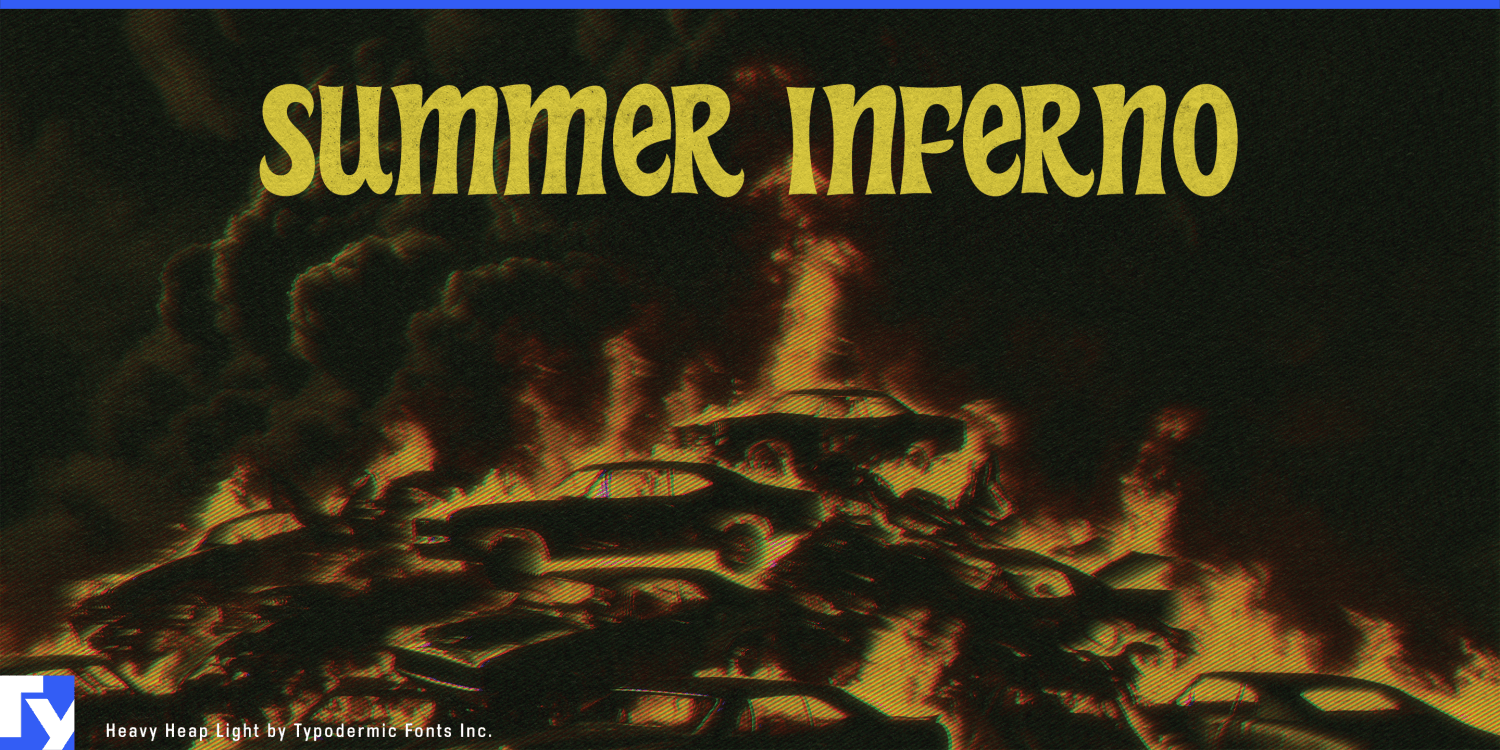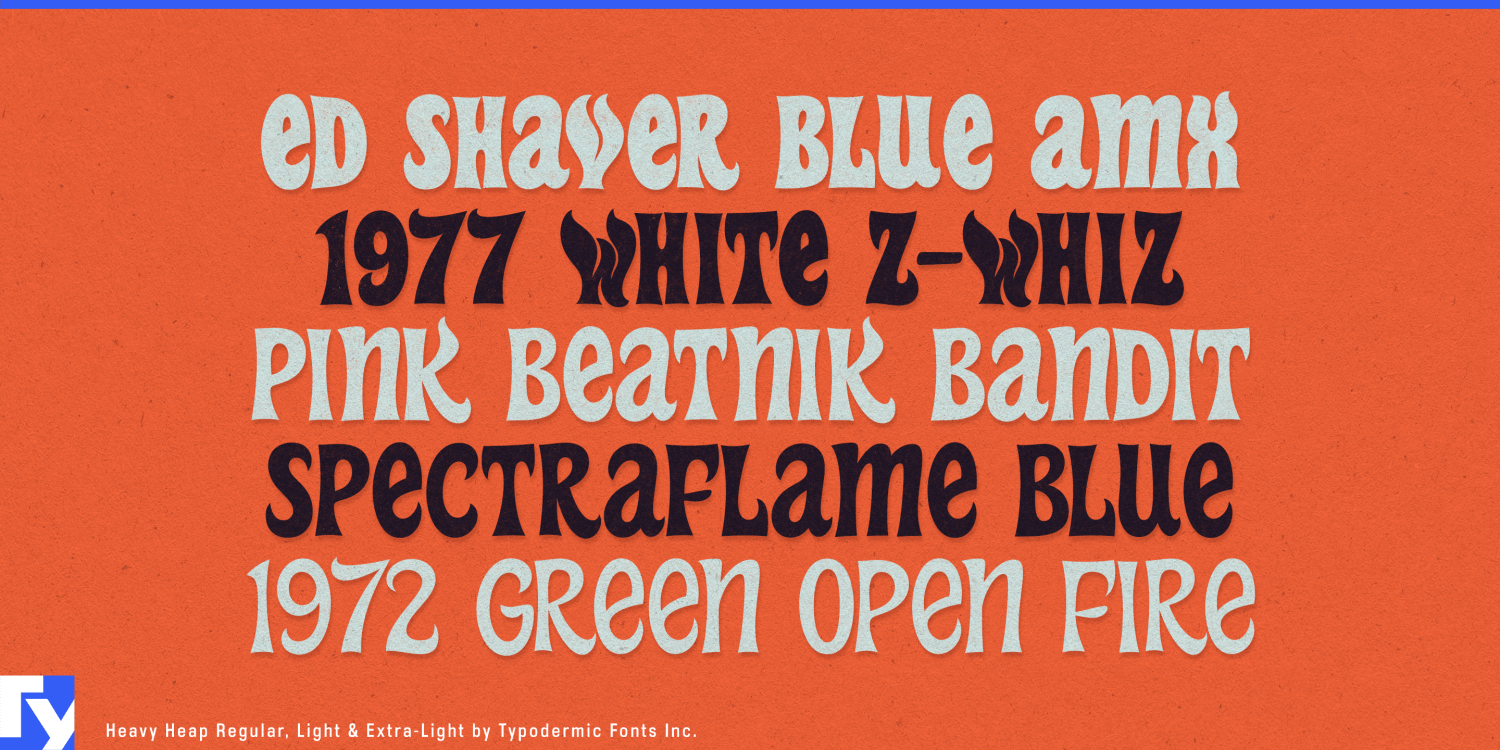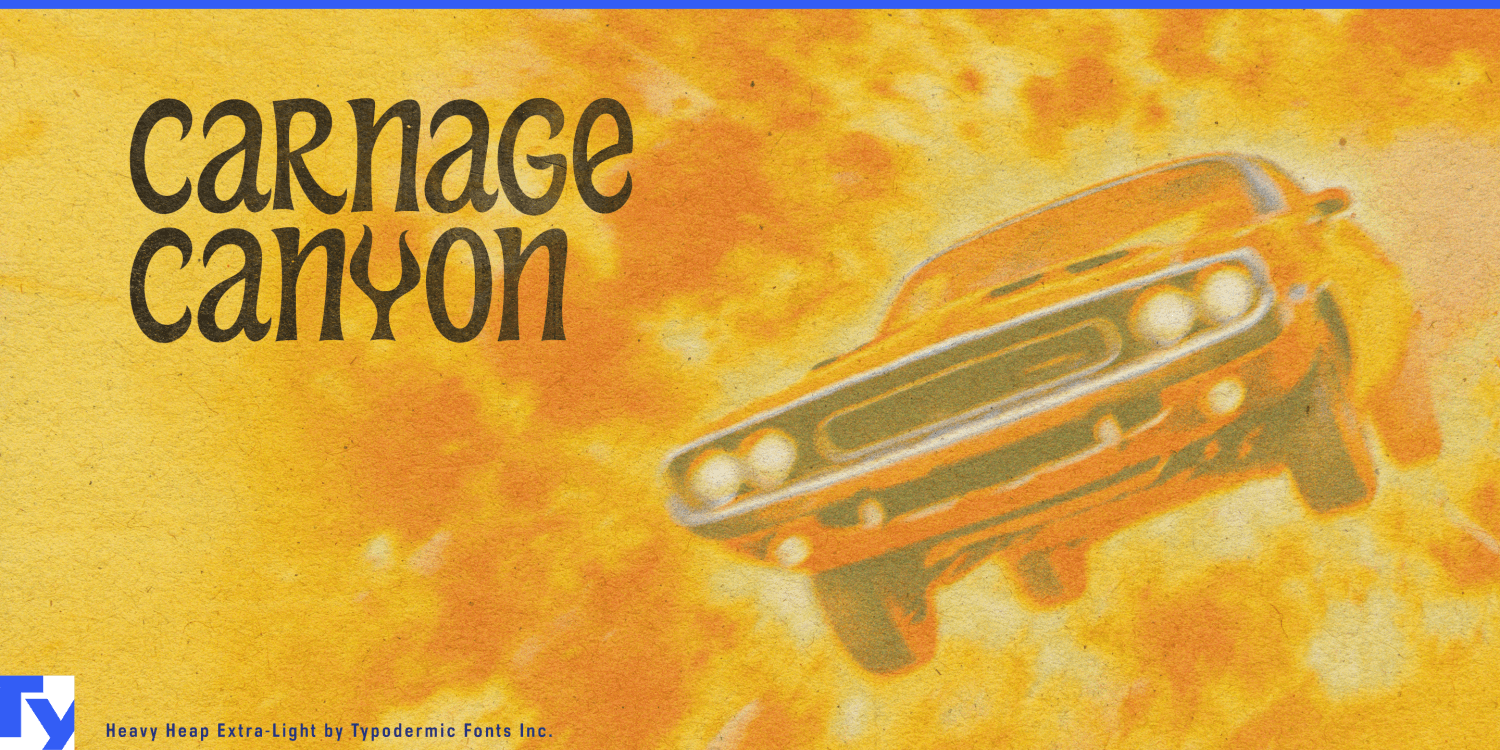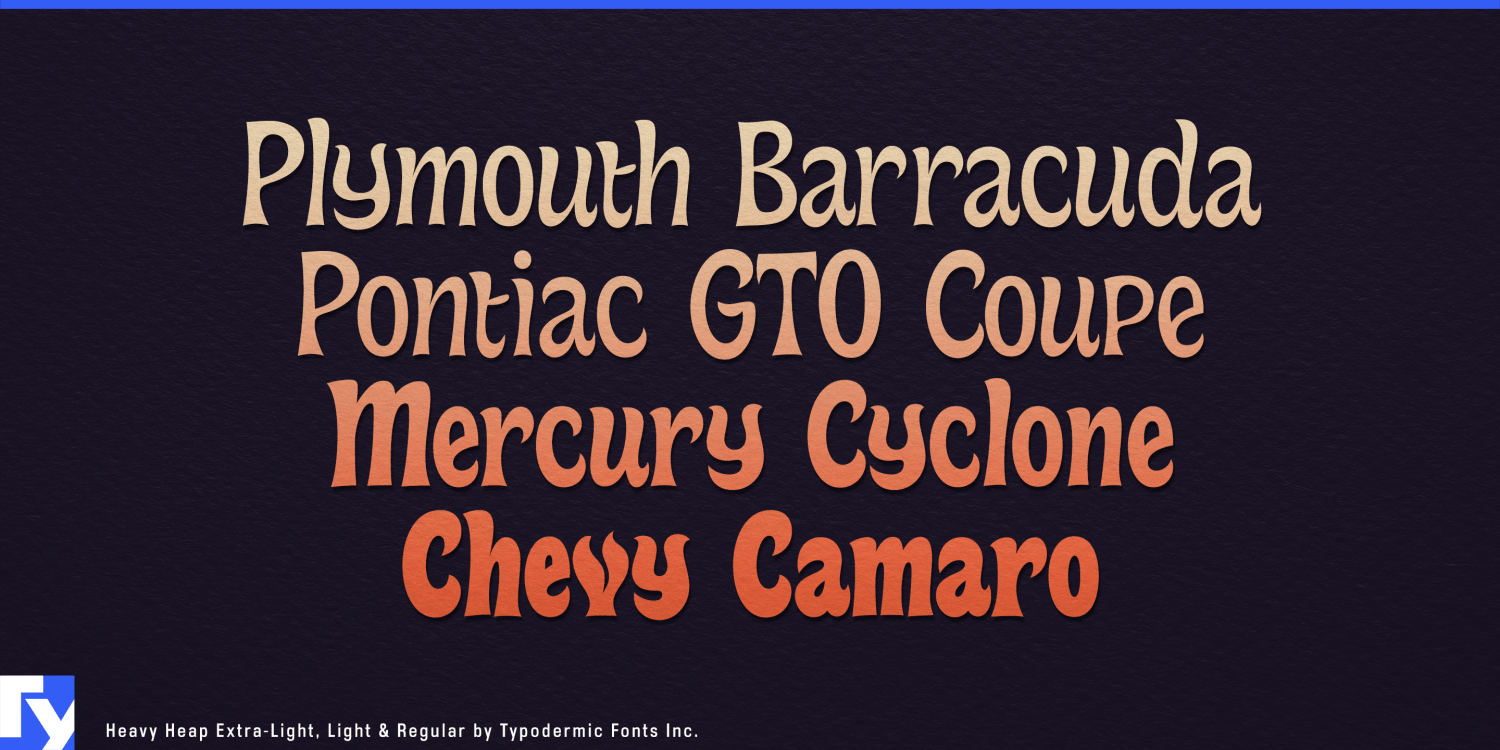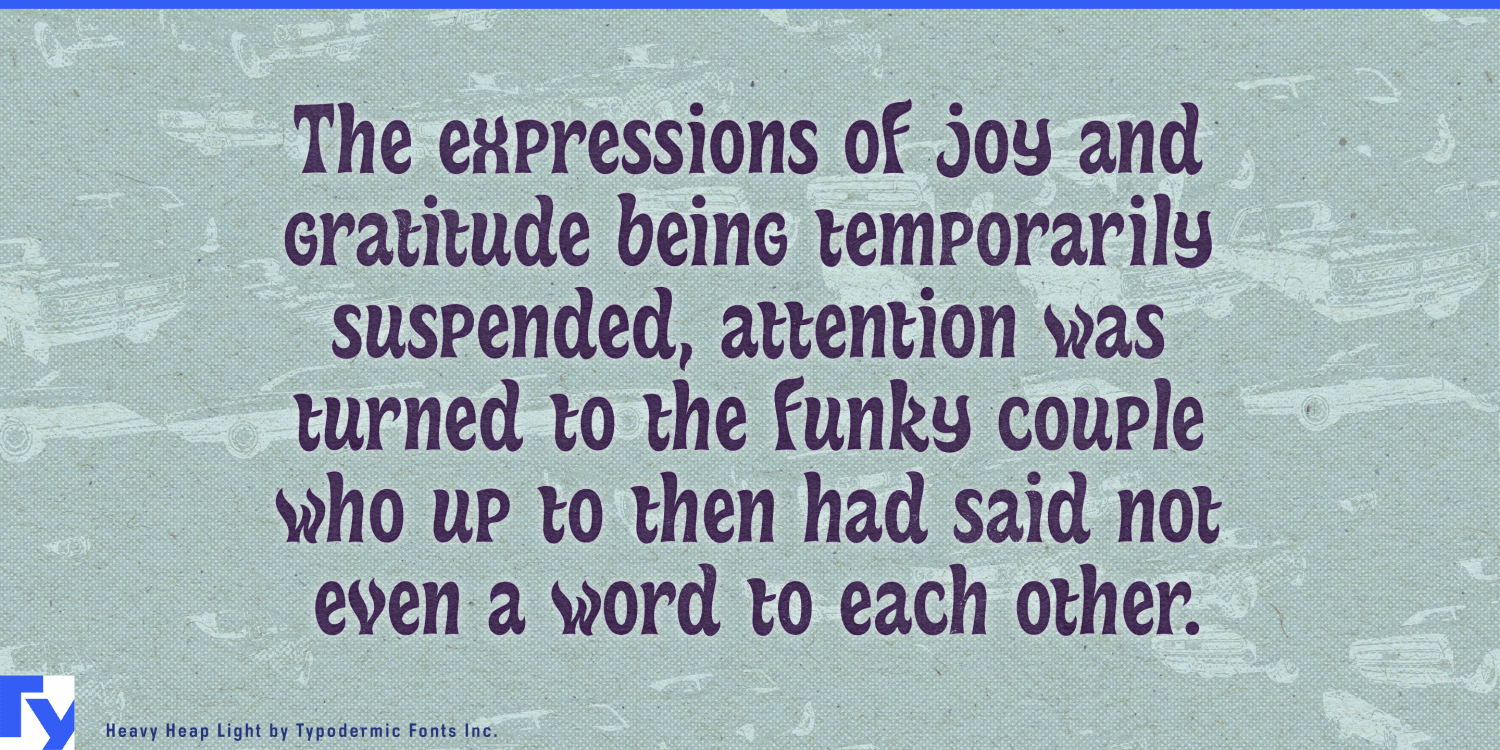
Buckle up, typographic speed demons! Heavy Heap has screeched onto the design scene, leaving a trail of scorched rubber and blown minds in its wake. This is a nitro-burning, chrome-plated beast of a typeface that screams, “kustom kulture”…